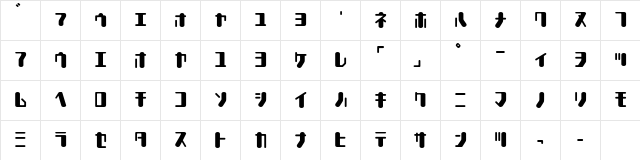
TYPEOUT2097 KAT Regular
Design Context for TYPEOUT2097 KAT Typeface
TYPEOUT2097 KAT takes a measured approach to typography — its balanced proportions and neutral character make it a reliable workhorse for both digital and print work.
Pro Tip: Use TYPEOUT2097 KAT in both headline and body roles to test its range before committing to a single application.